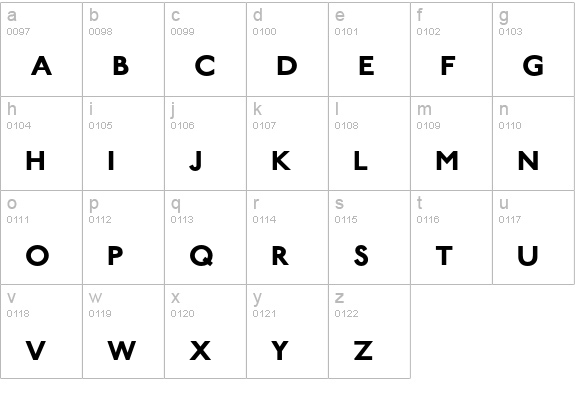
PaddingtonSC Demi Bold Small Caps Font Details
PaddingtonSC Demi Bold Small Caps is a sub-bold, structured variant in the PaddingtonSC typeface family \xE2\x80\x94 well suited to sub-headlines and emphasised passages.
PaddingtonSC Demi Bold Small Caps font is a stunning display font that exudes sophistication and elegance. With its bold and distinctive small caps, this font is perfect for adding a touch of class to any design project. The characters of PaddingtonSC Demi Bold Small Caps are meticulously crafted, showcasing clean lines and careful attention to detail. Its delicate curves and sharp edges create a harmonious balance, making it visually pleasing and highly readable. This font is not only aesthetically pleasing but also highly versatile. It can be used in a wide range of projects, from branding and packaging to headlines and posters. Its versatility ensures that it will complement any design style, whether it's modern and minimalist or traditional and ornate. What sets PaddingtonSC Demi Bold Small Caps font apart is its availability as a free download. With just a few simple clicks, you can have access to this exquisite font at FontsMarket.com. The free availability of this font makes it accessible to designers and creatives of all levels, allowing them to bring their visions to life without any limitations. So, if you're looking to elevate your designs with a bold and elegant display font, look no further than PaddingtonSC Demi Bold Small Caps. Download it for free at FontsMarket.com and let your creativity soar.